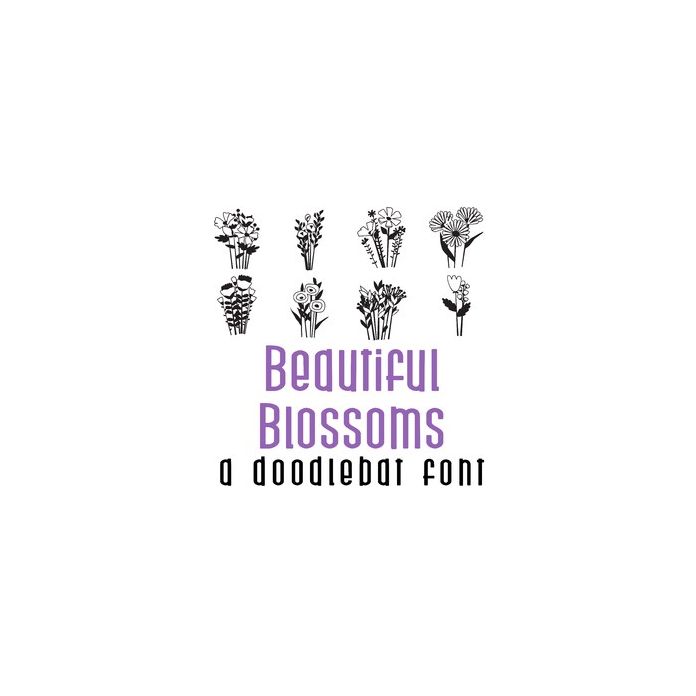
This fun doodle style doodlebat font features 30 flowers, vases and pots. Perfect for cards, crafts, gifts, decor, scrap book pages, planner stickers and more! Dingbats are A-Z and 0-3.